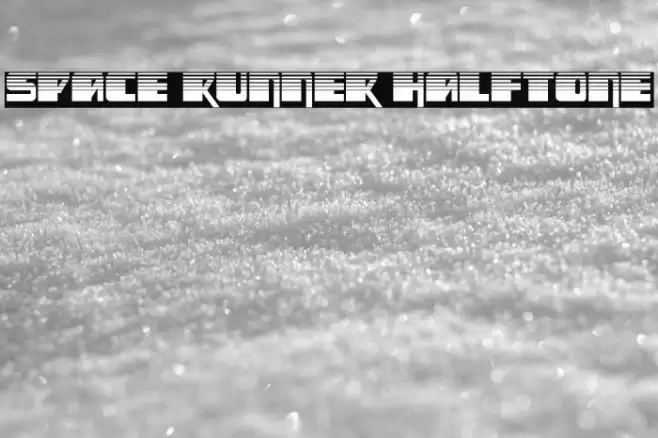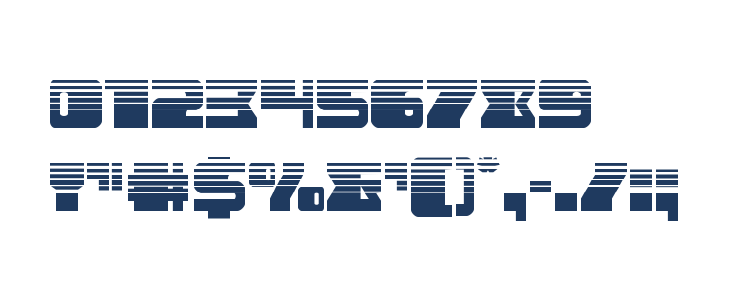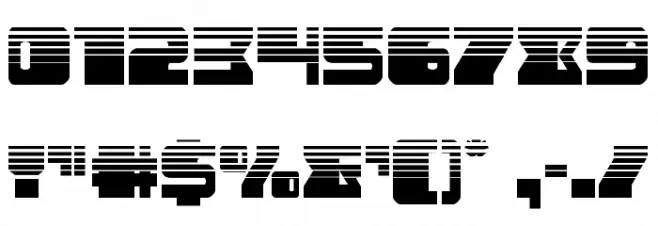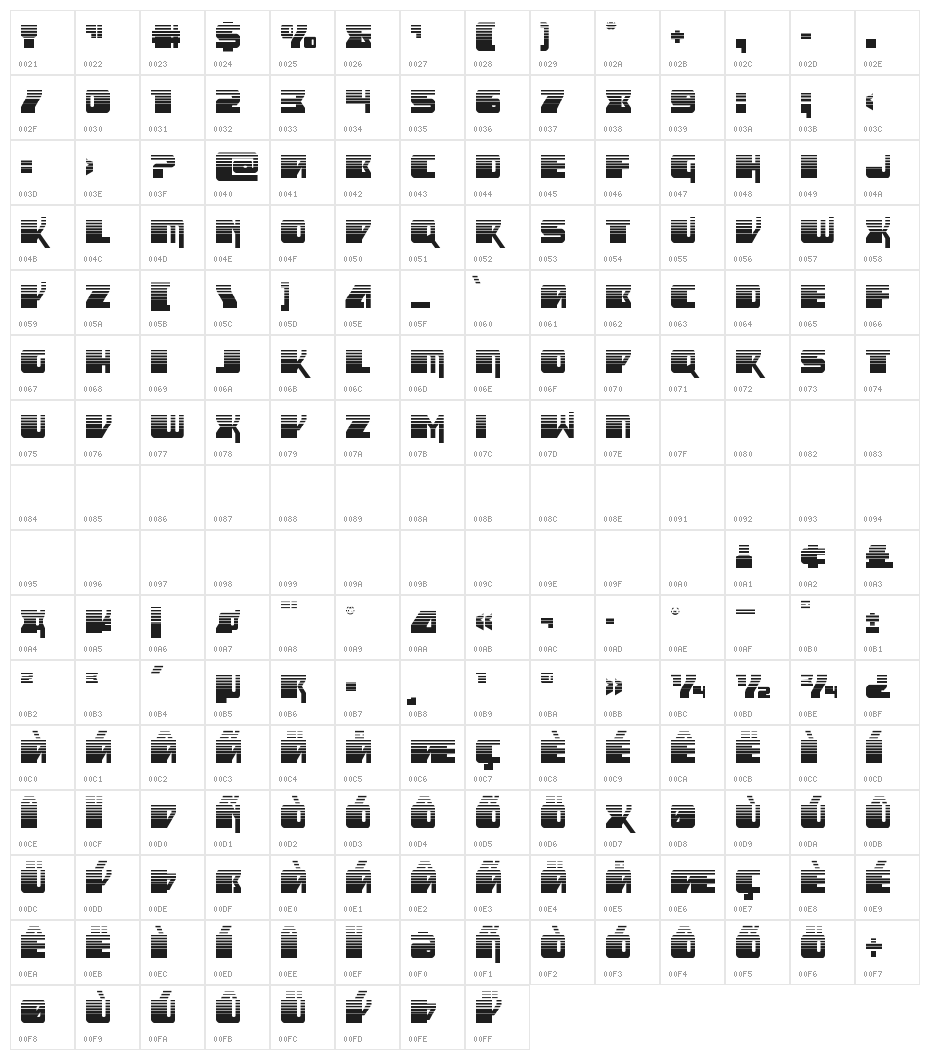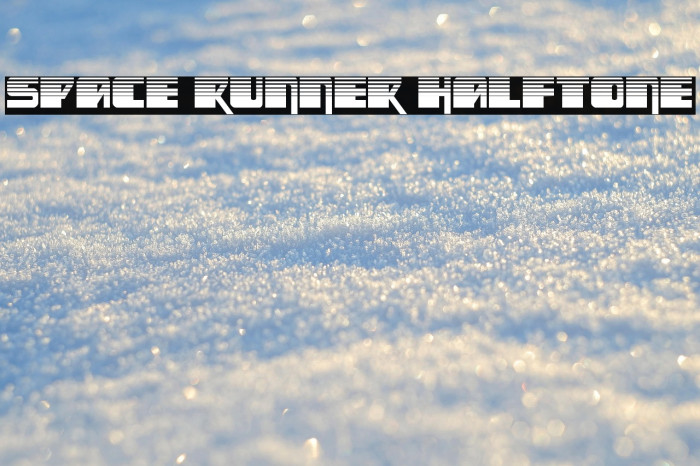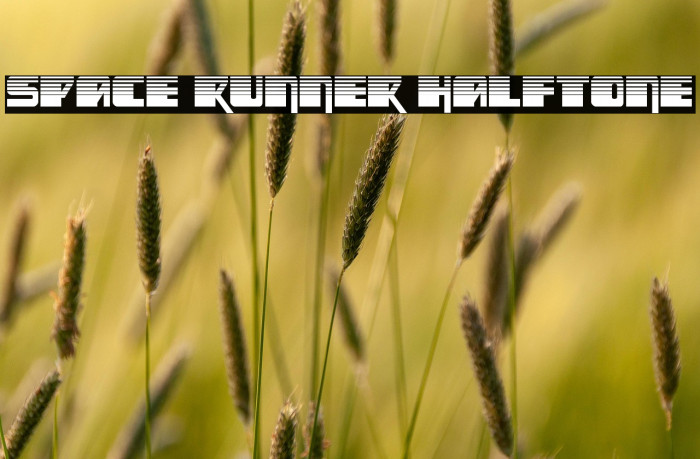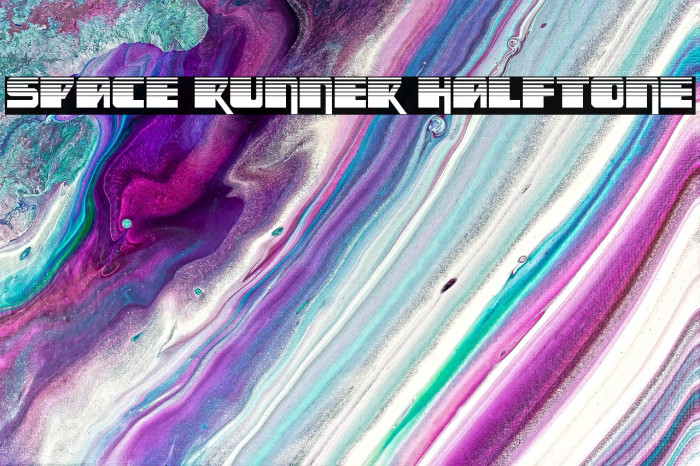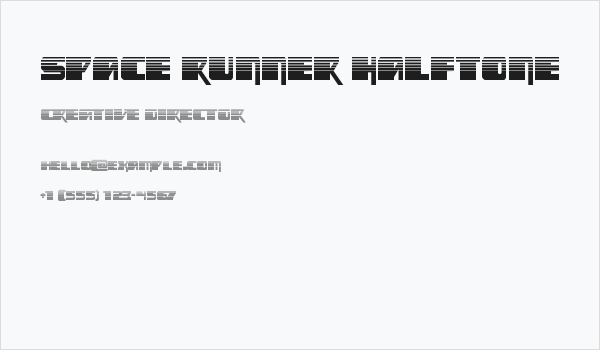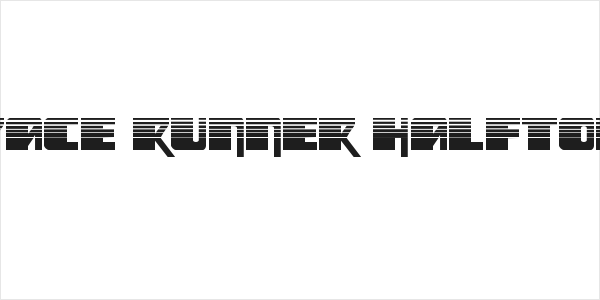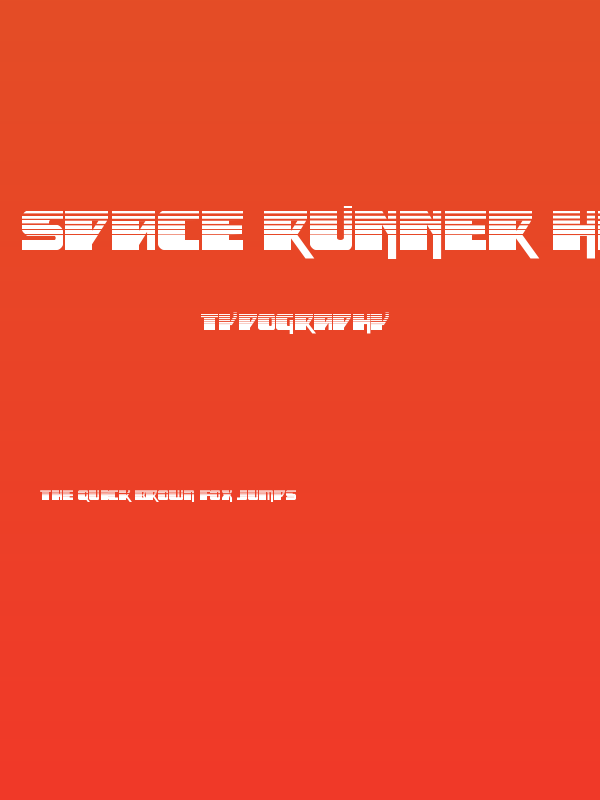
Space Runner Halftone Font
Space Runner Halftone Description
This font features a futuristic and bold design with a halftone effect that gives it a unique, digital appearance. The characters are constructed with horizontal lines that create a sense of movement and speed, reminiscent of digital displays or sci-fi themes. The uppercase and lowercase letters maintain a consistent style, with sharp angles and a blocky structure that enhances its modern aesthetic. The numbers and special characters follow the same design principles, ensuring uniformity across all glyphs. This font is ideal for projects that require a tech-savvy or space-age look, making it perfect for video game titles, movie posters, or any creative work that aims to capture a sense of innovation and forward-thinking.
A futuristic, bold font with a halftone effect and digital aesthetic from Uncategorized fonts.
- Proposed Projects: Ideal for video game titles, sci-fi movie posters, tech branding, and futuristic designs.